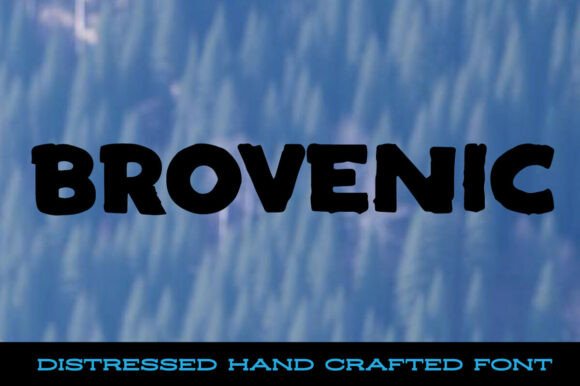
The Designer’s Delight: Brovenic Font
I’ll never forget the time I was working on a branding project for a local craft brewery. I had nailed down the logo concept, but the font I was using just wasn’t giving me the vibe I wanted. It was either too sleek, too generic, or just plain boring. My client was counting on me to deliver something unique, and I was stuck. That’s when I stumbled upon Brovenic Font, and let me tell you, it was love at first sight! 💕
What Makes Brovenic Special?
Brovenic is a hand-crafted bold font that combines strength with subtle imperfections. Its slightly rough edges add a touch of authenticity and character, giving it a natural, handmade feel. This font is perfect for projects that require a balance of boldness and warmth, such as logos, headlines, branding, and creative displays. Its unique charm makes it versatile for both modern and vintage-inspired designs.
- ✨ Unique Character: Brovenic has a distinct personality that sets it apart from other bold fonts.
- ✅ Versatility: It works well for both modern and vintage-inspired designs.
- 💯 Legibility: Despite its bold nature, Brovenic remains highly legible, even at smaller sizes.
- 🎨 Customization: The font comes with a range of OpenType features, glyphs, and stylistic alternates, making it highly customizable.
- 🤔 Limited Use Cases: While Brovenic is amazing for bold, attention-grabbing text, it might not be the best choice for body text or more formal documents.
- ⚠️ Kerning Issues: As with any font, you might need to adjust kerning for optimal results, especially when using all caps or large text sizes.
Brovenic was inspired by the rustic charm of handmade crafts and the boldness of modern design. Its creator aimed to craft a font that would bring a sense of authenticity and character to any project. The result is a font that’s both strong and inviting.
| What makes Brovenic unique? | Brovenic’s unique blend of strength and subtle imperfections gives it a natural, handmade feel. |
| Is Brovenic suitable for body text? | While Brovenic is amazing for bold, attention-grabbing text, it might not be the best choice for body text due to its bold nature. |